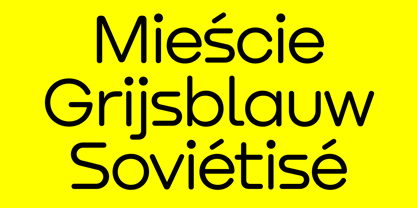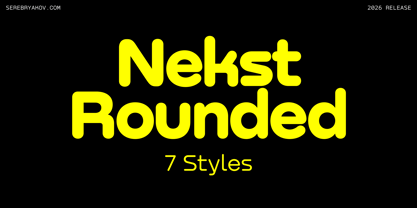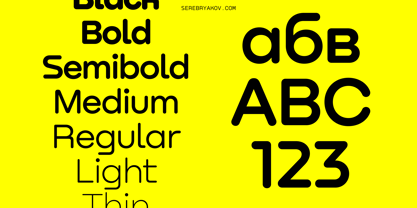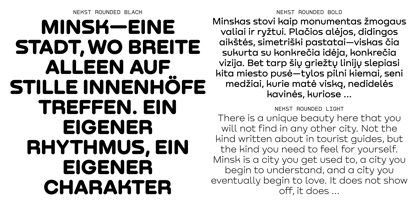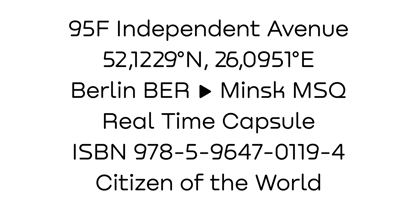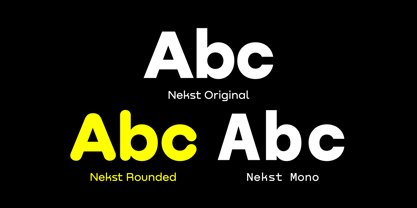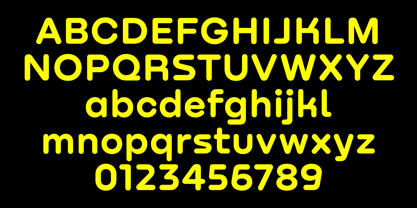
Nekst Rounded
von Serebryakov
Die Schriftfamilie Nekst Rounded wurde von Denis Serebryakov entworfen und von Serebryakov veröffentlicht. Nekst Rounded enthält 7 Stile und Familienpaketoptionen. Mehr über diese Familie
Nekst Rounded is a softer version of Nekst, maintaining the same geometric foundation, inner eccentricity, and constructivist logic. The rounded stroke terminals reduce the family's harshness, adding a touch of friendliness while preserving its strength. All seven weights—from Thin to Black—are available in full. Rounded is ideal for applications where the original Nekst may seem too rigid, such as interfaces, youth and consumer branding, and communications that aim to build trust rather than just command respect. Additionally, it performs well in serious contexts, including large sizes, dense typography, and display applications. See also Nekst and Nekst Mono.
Designer: Denis Serebryakov
Foundry: Serebryakov